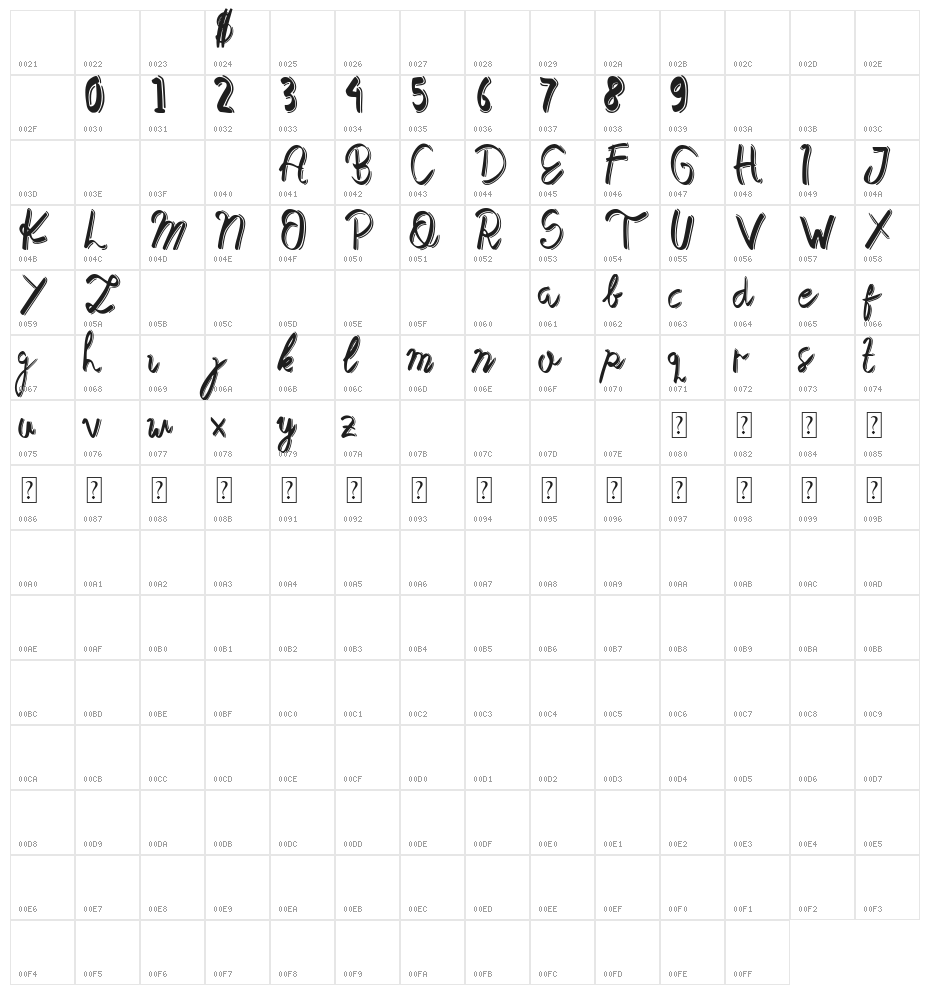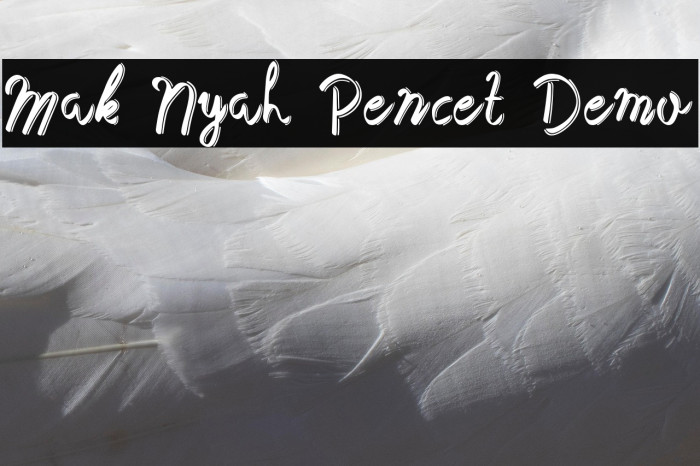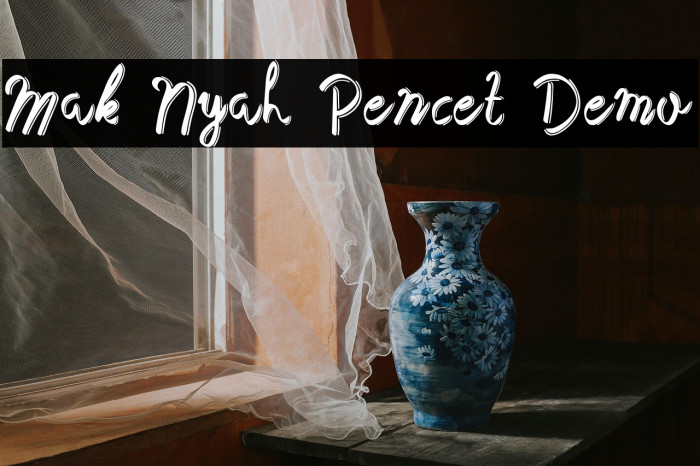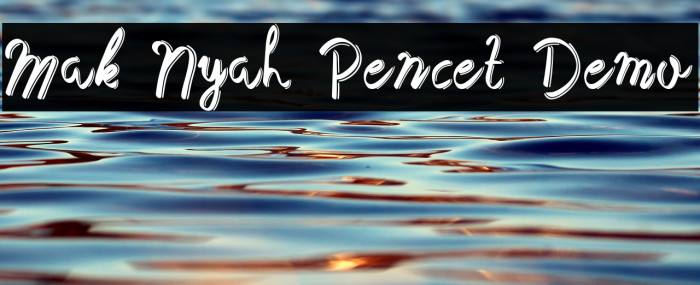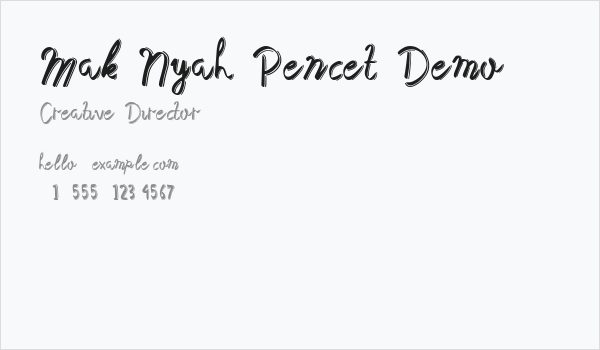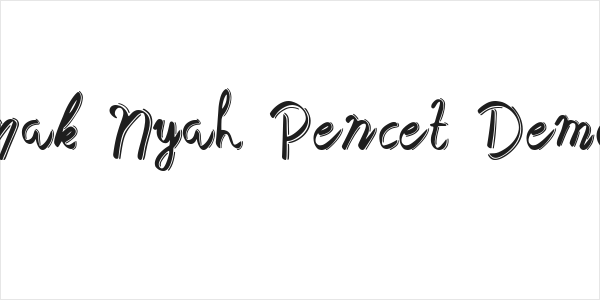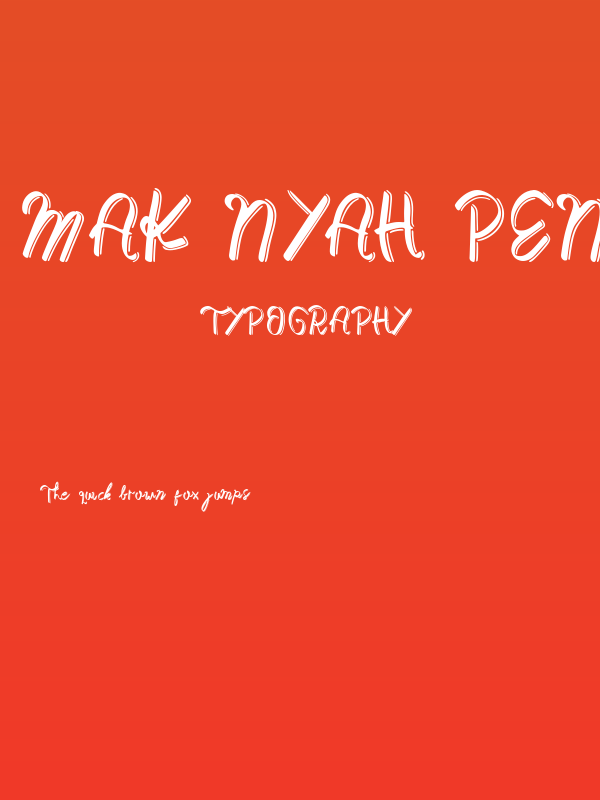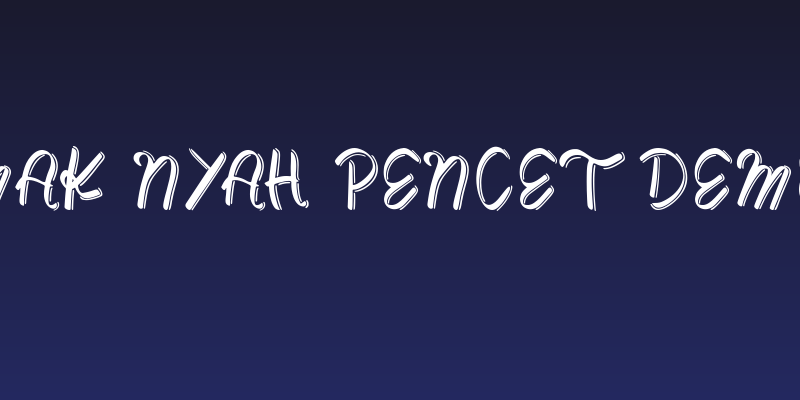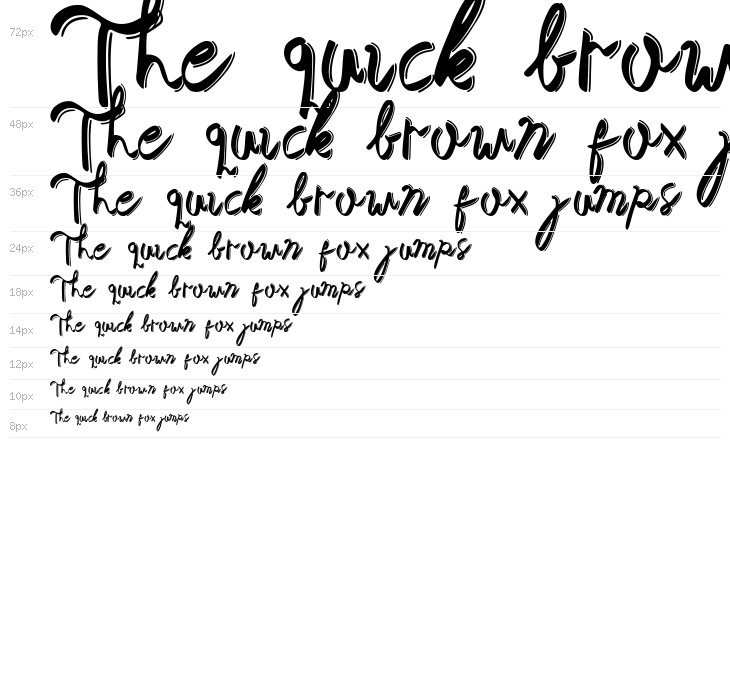
Mak Nyah Pencet Demo Font
Mak Nyah Pencet Demo Description
This font features a bold, expressive style with a dynamic flow that combines elements of both script and display fonts. The uppercase letters are characterized by their fluid, cursive strokes, while the lowercase letters maintain a more connected, handwritten appearance. The numbers and special characters follow the same bold and artistic design, making them stand out. The overall look is playful yet sophisticated, with a high contrast in stroke thickness that adds to its visual appeal. This font is perfect for projects that require a touch of elegance and creativity.
| Proposed Projects | Ideal for branding, invitations, posters, and creative design projects. |